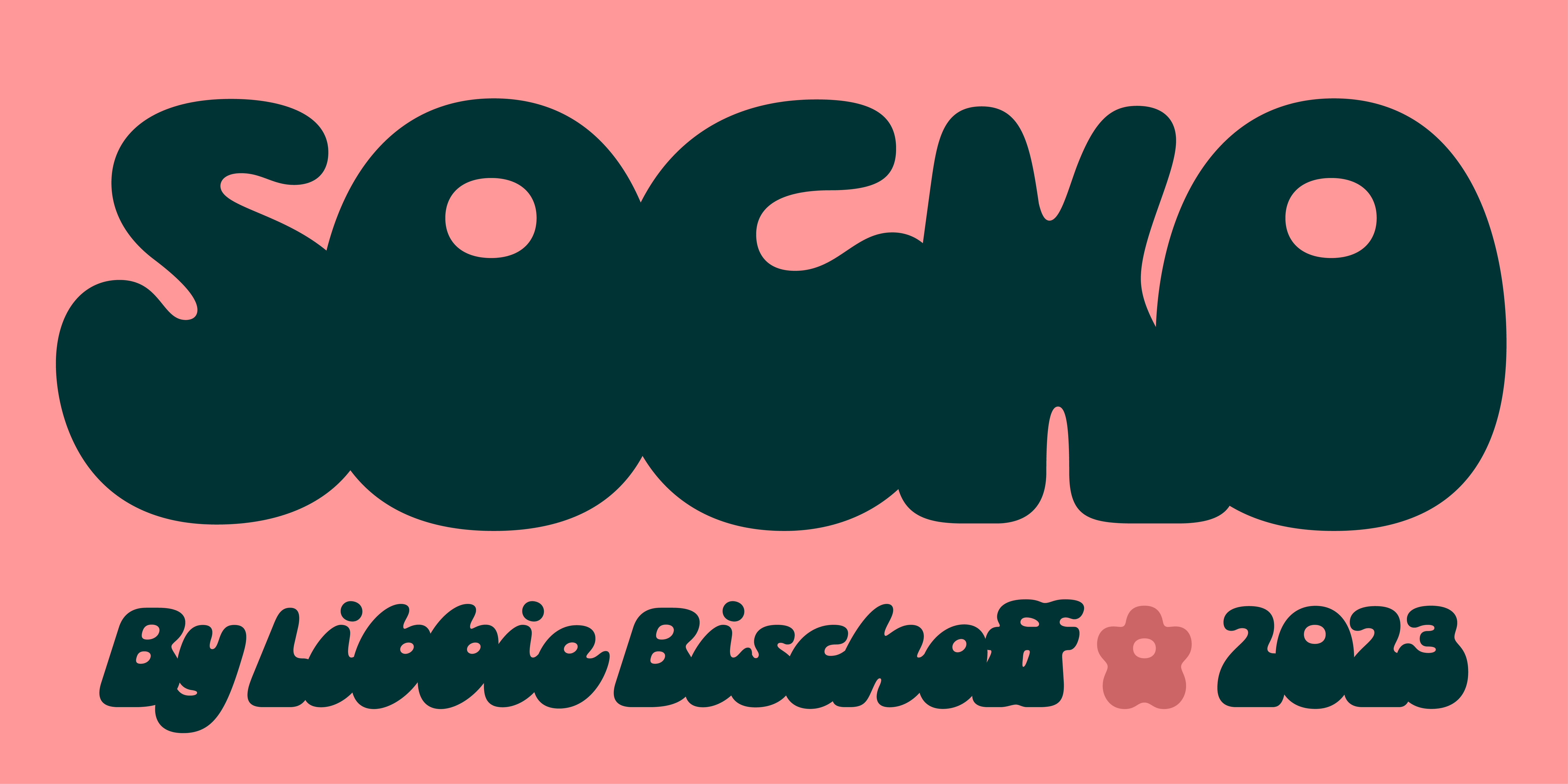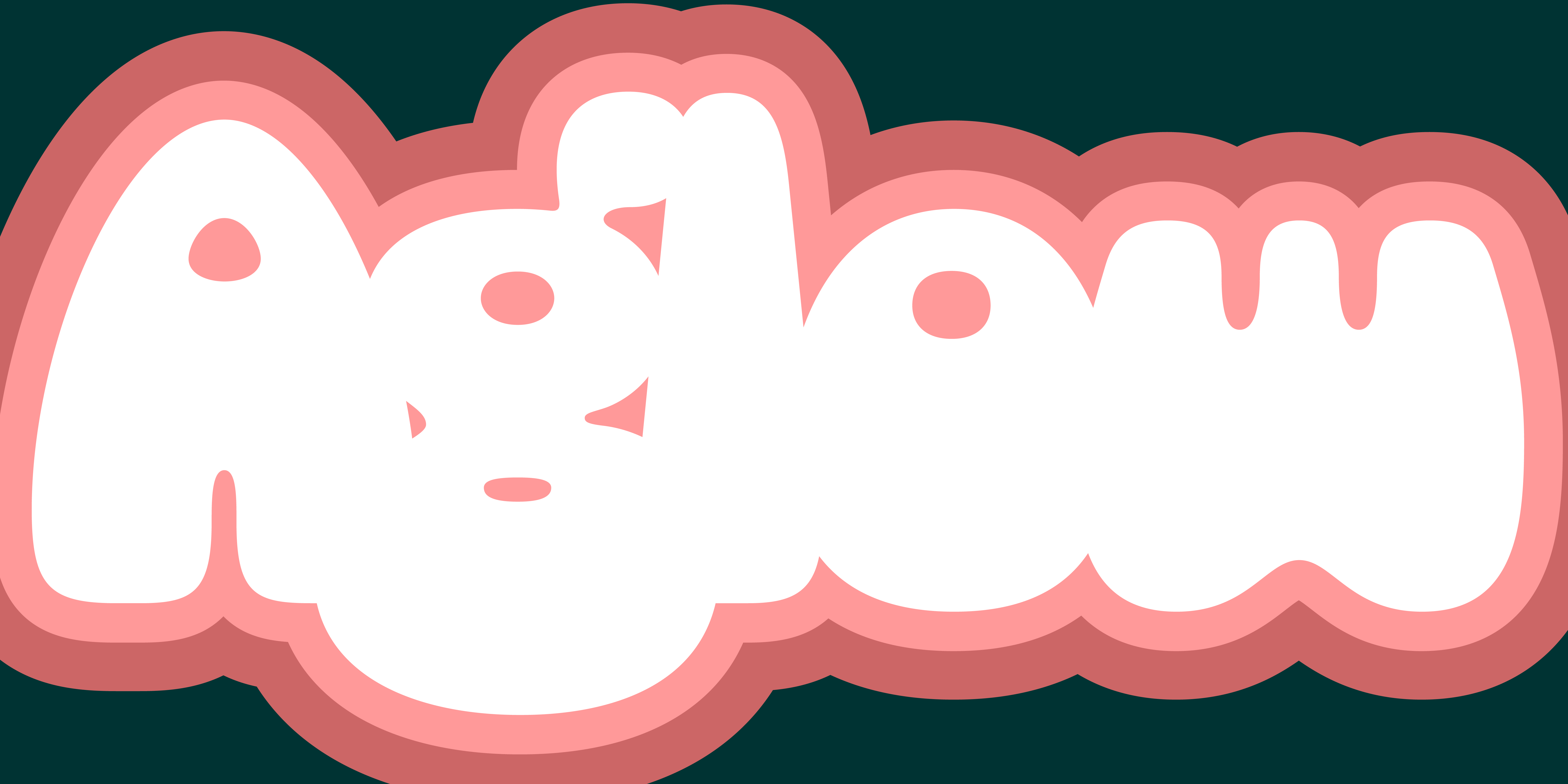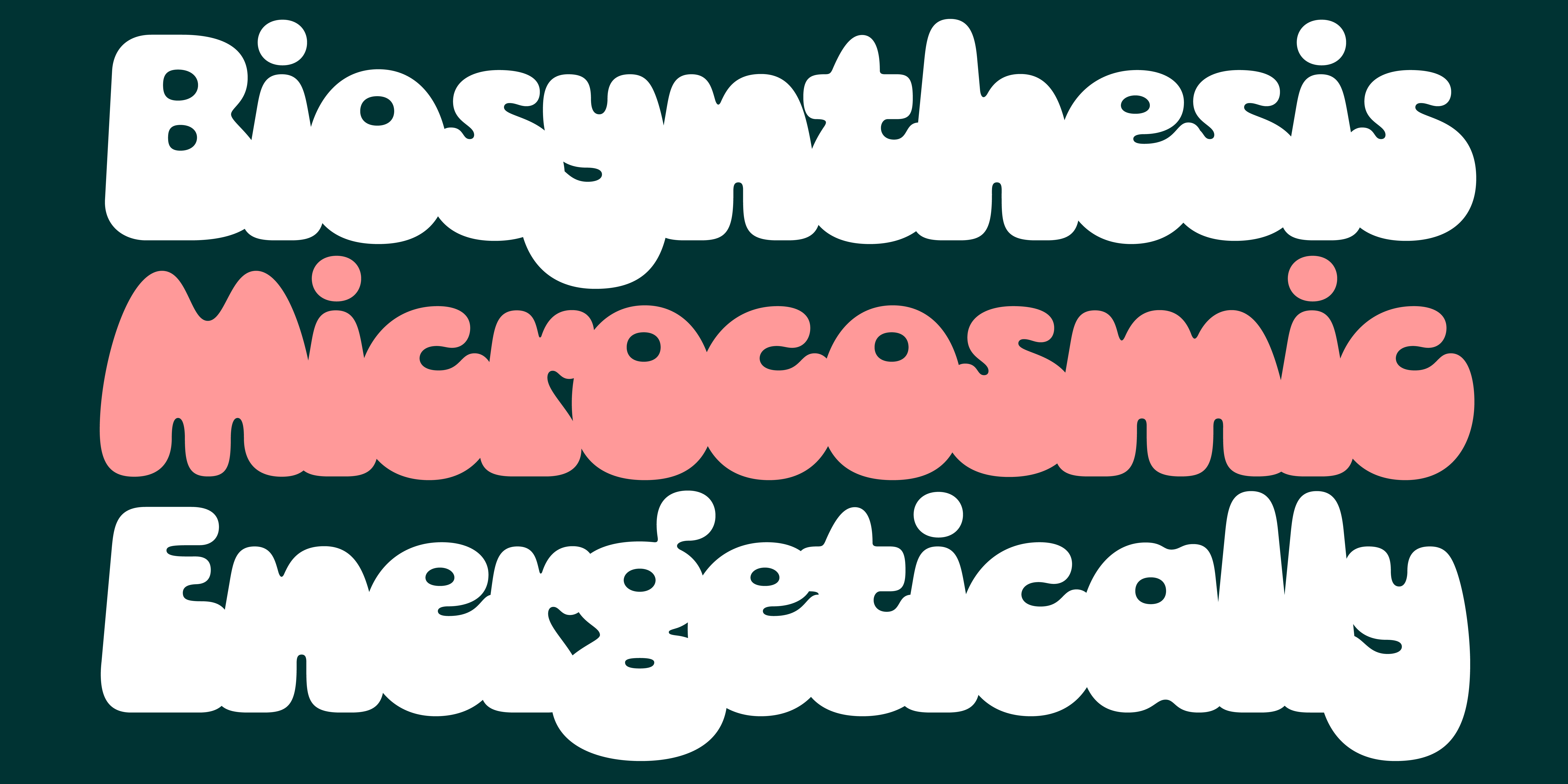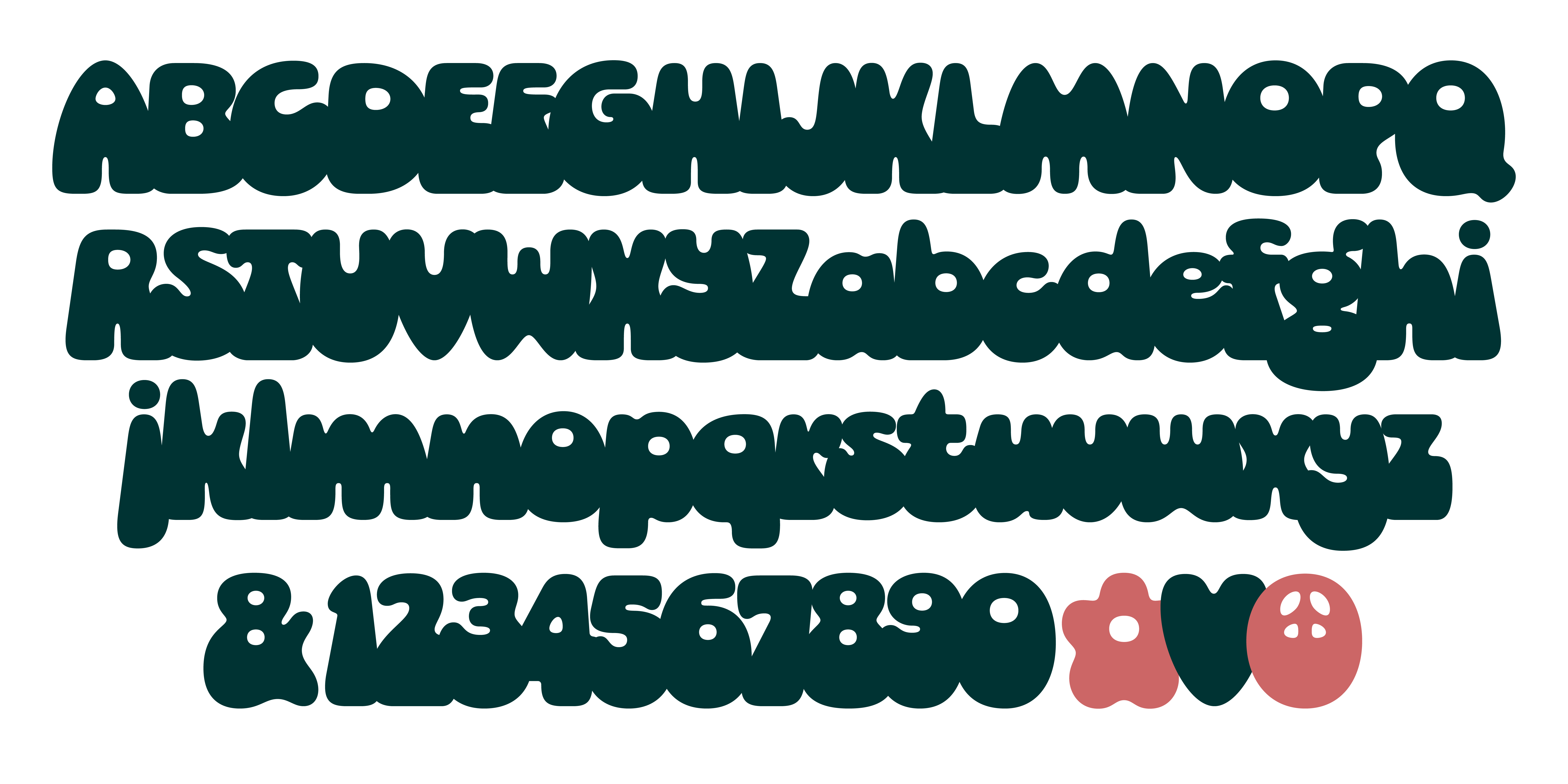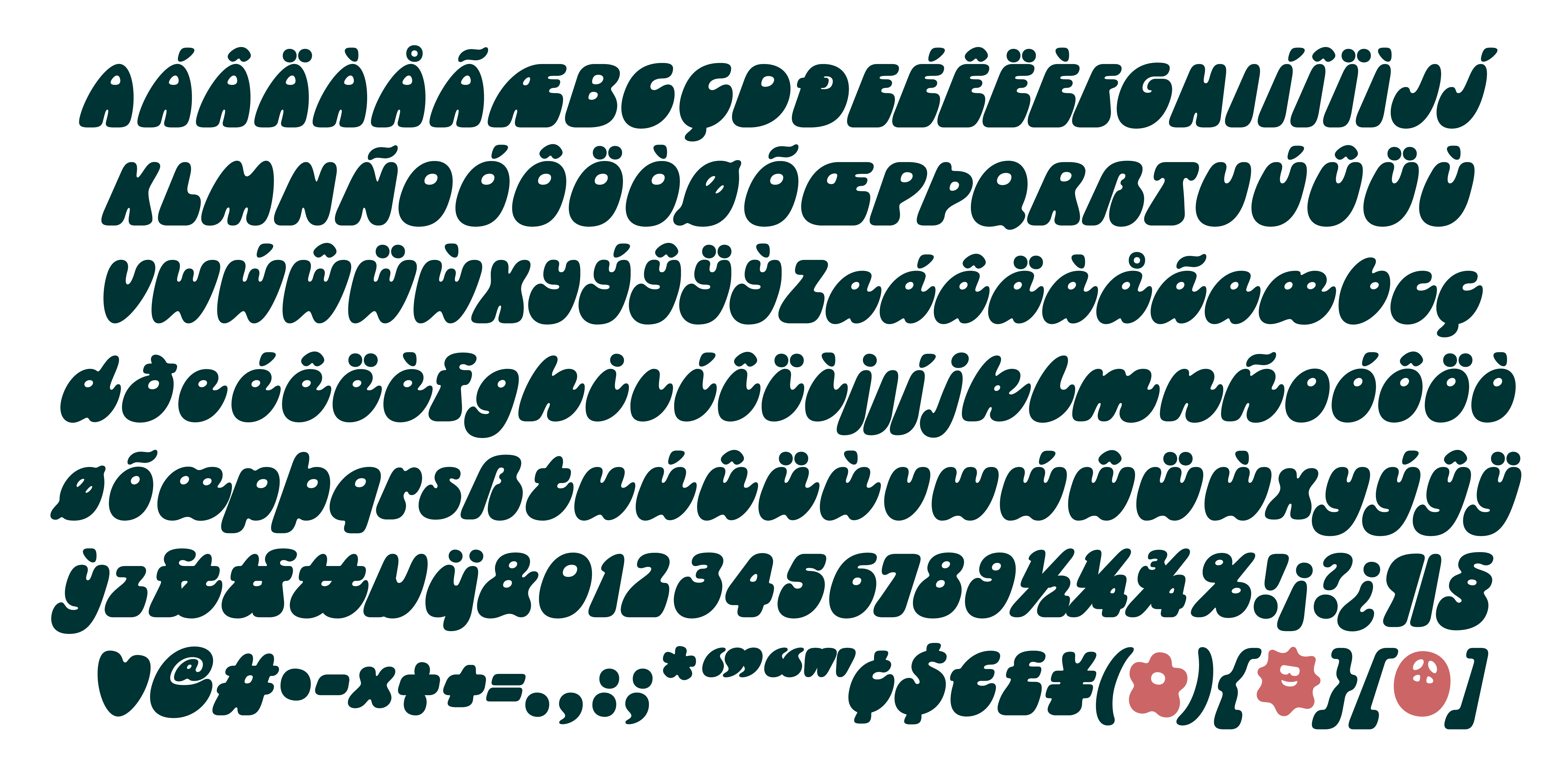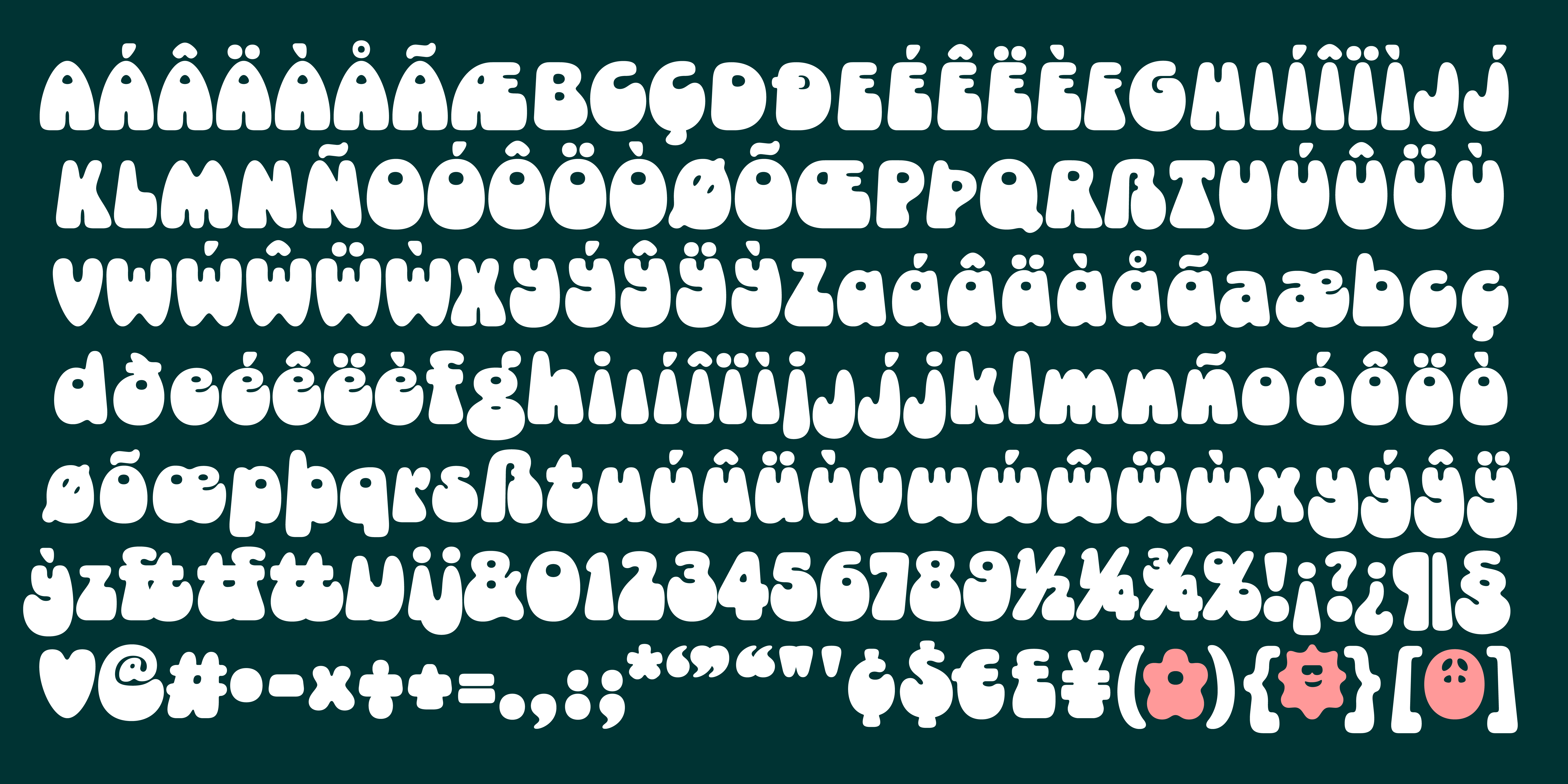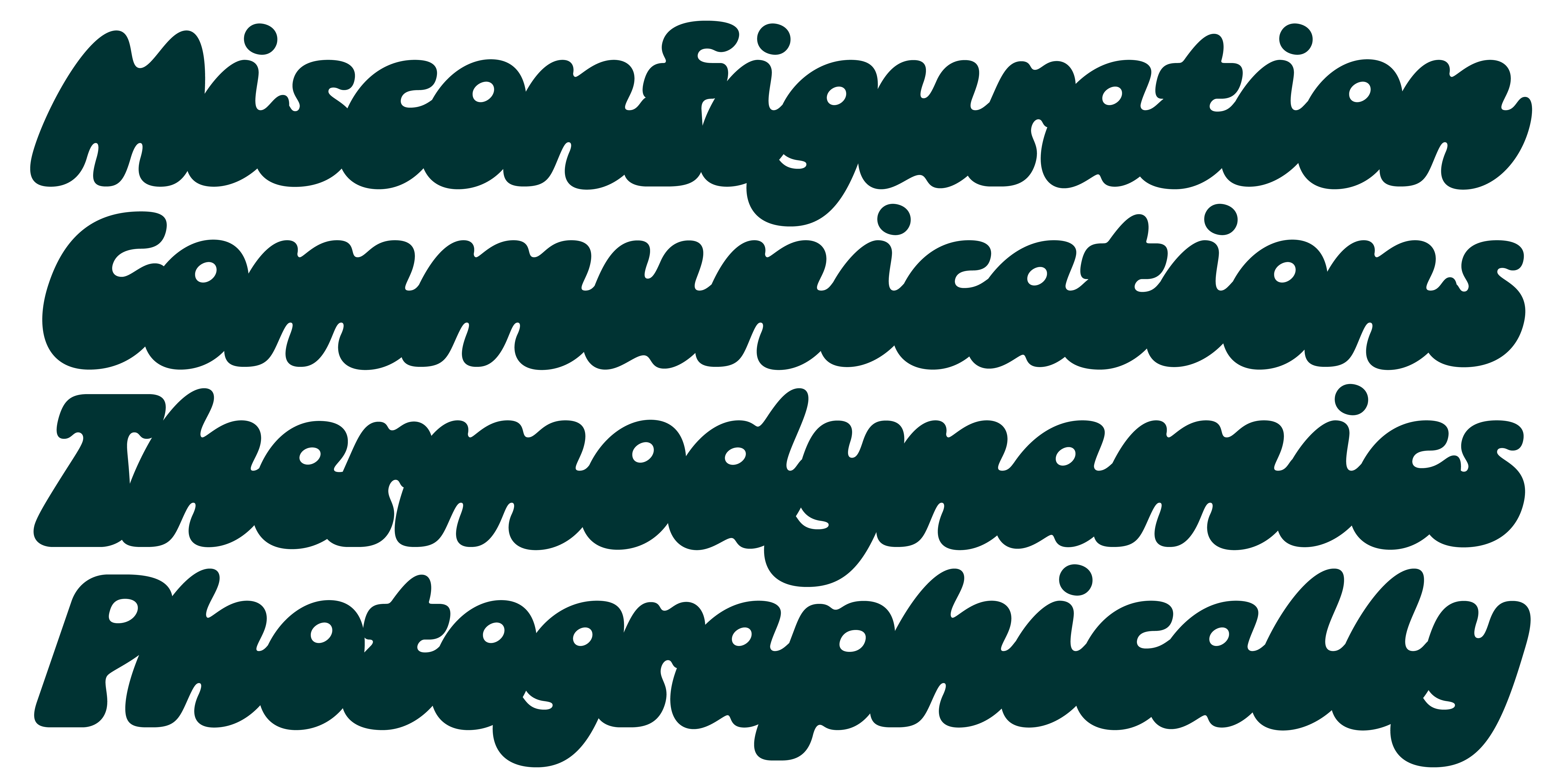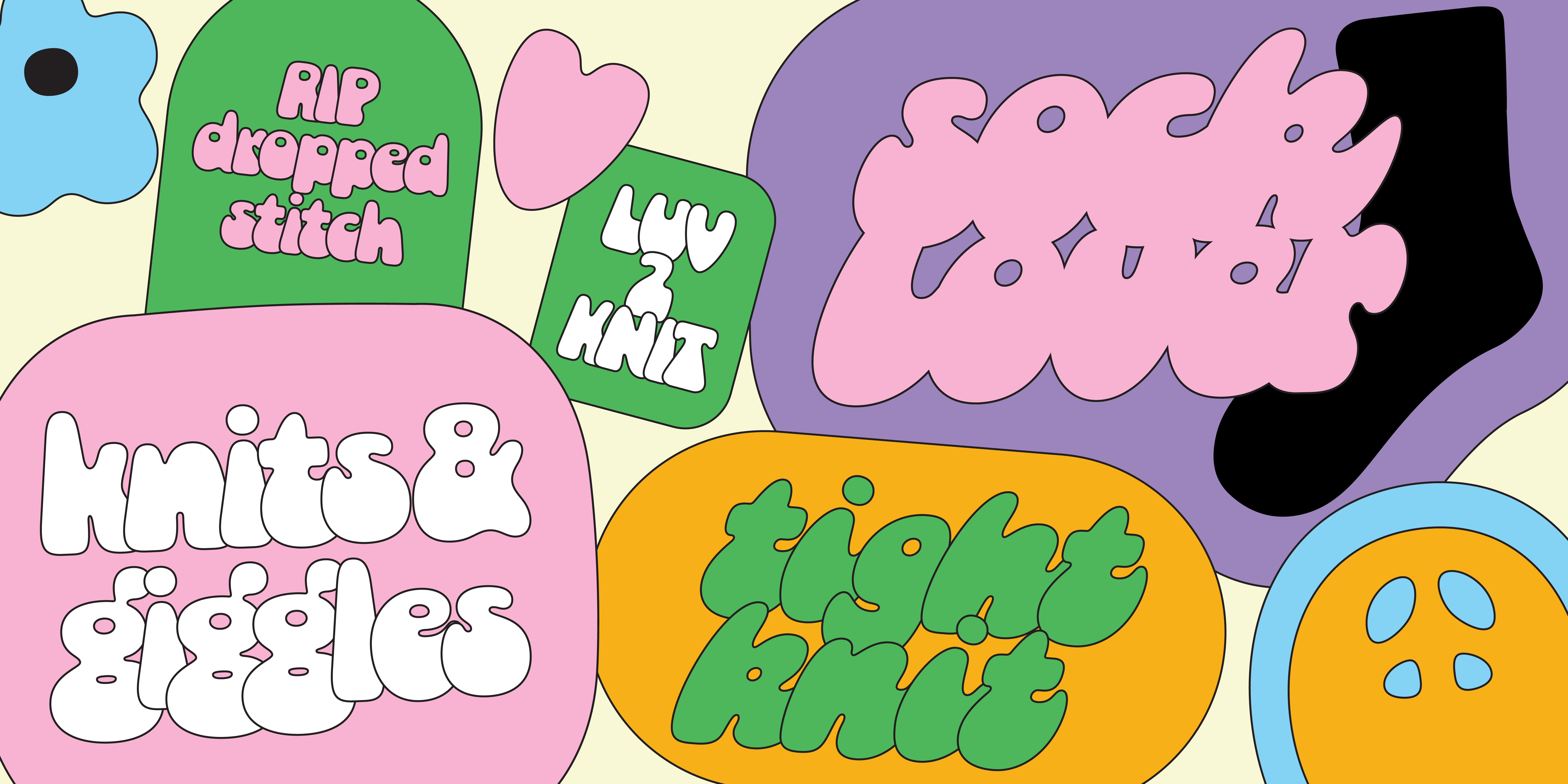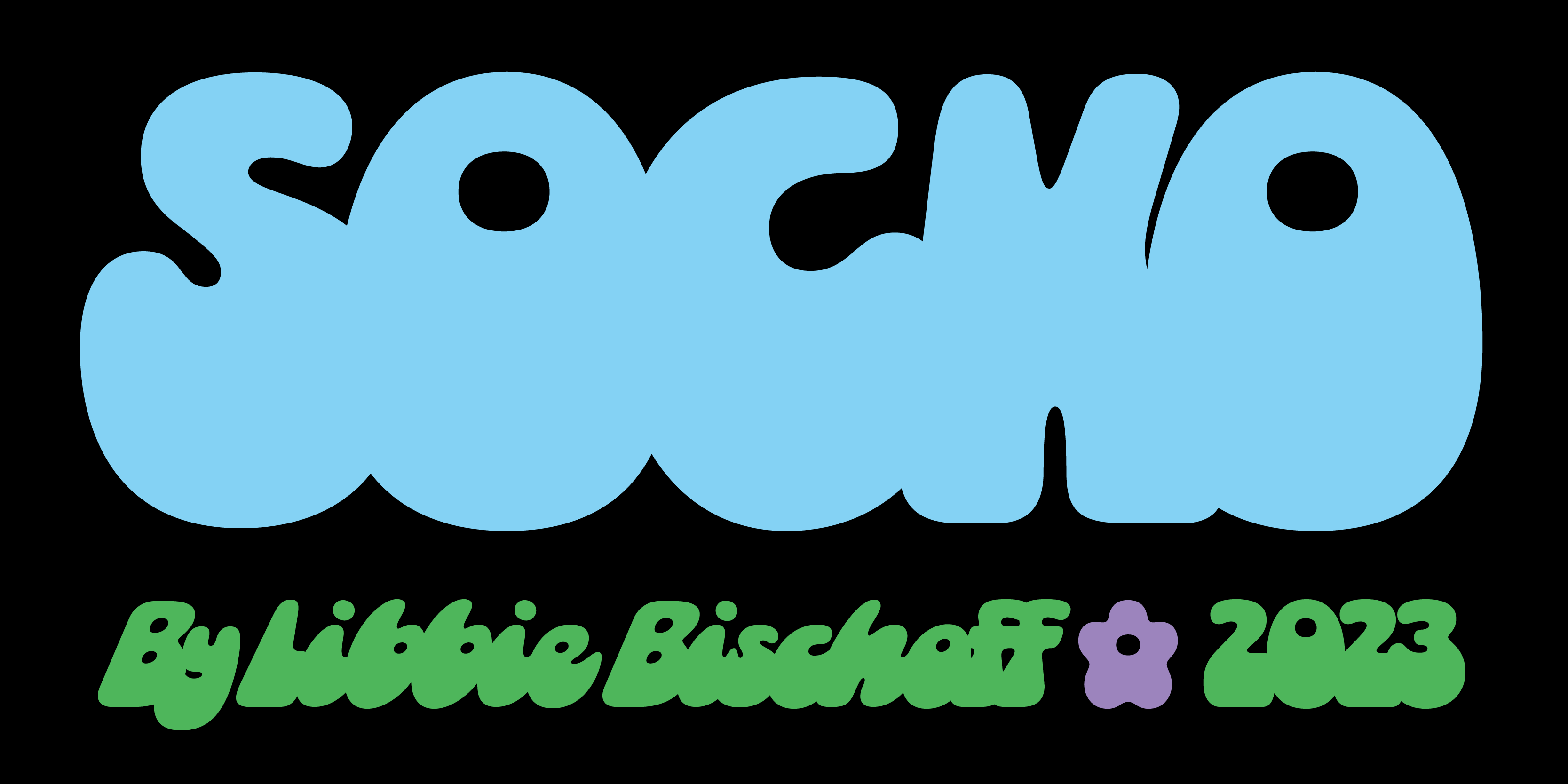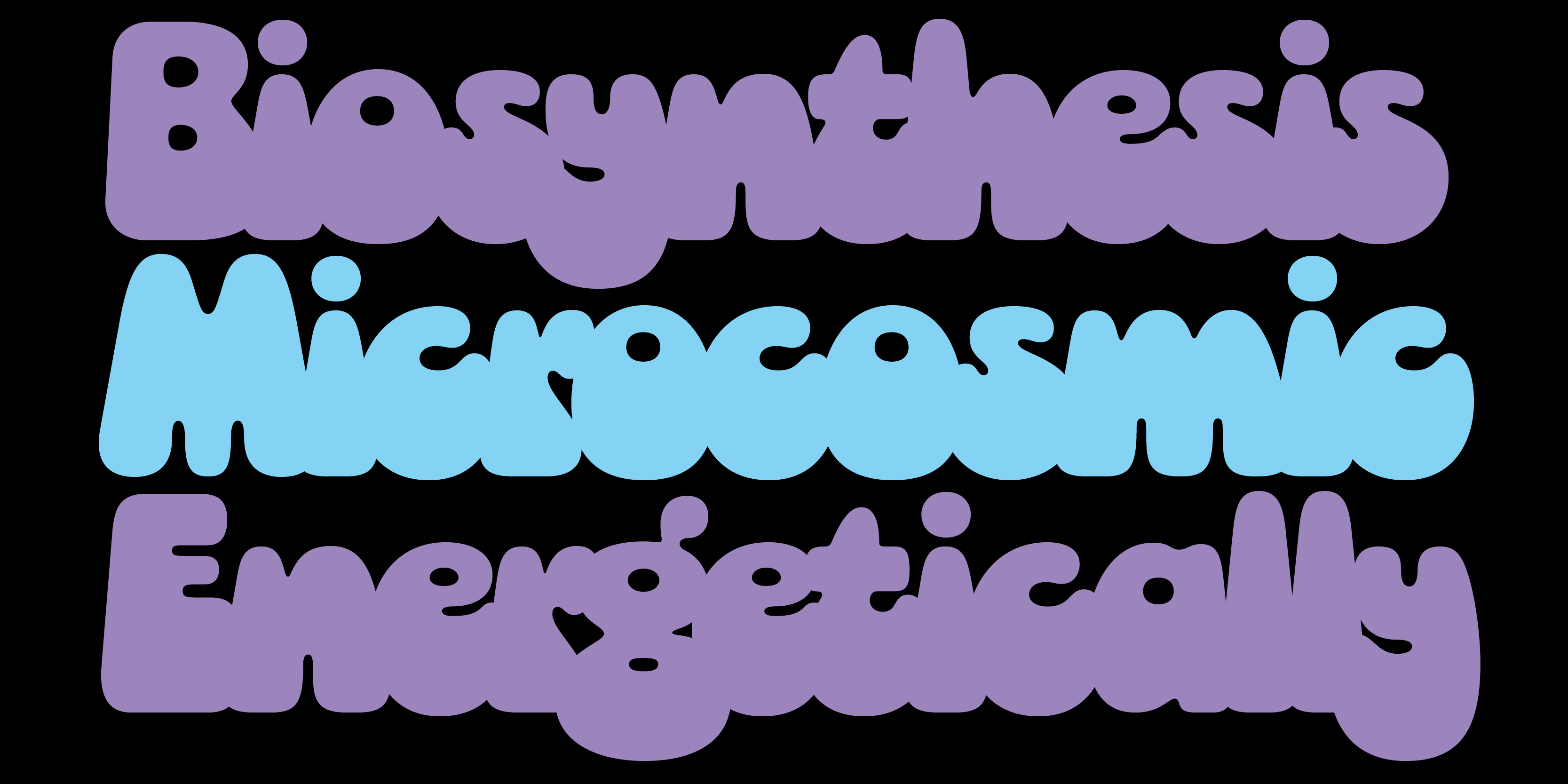
Socko began with lettering found in a 1950’s knitting magazine — a little “SOCKO!” sketch for a sock pattern. This typeface was designed by Libbie Bischoff as part of her 52 Fonts project and has now been fully developed into a 2-style, chunky sans. With it’s fat-bottomed forms, Socko has a retro feel and a huggable energy. It would feel right at home on festival posters, any kind of beverage branding, or a tee shirt for your local record store.
Update includes a larger character set (Adobe Latin 2 and LatinPlus) as well as adjustments and simplifications to forms, & new ligatures.